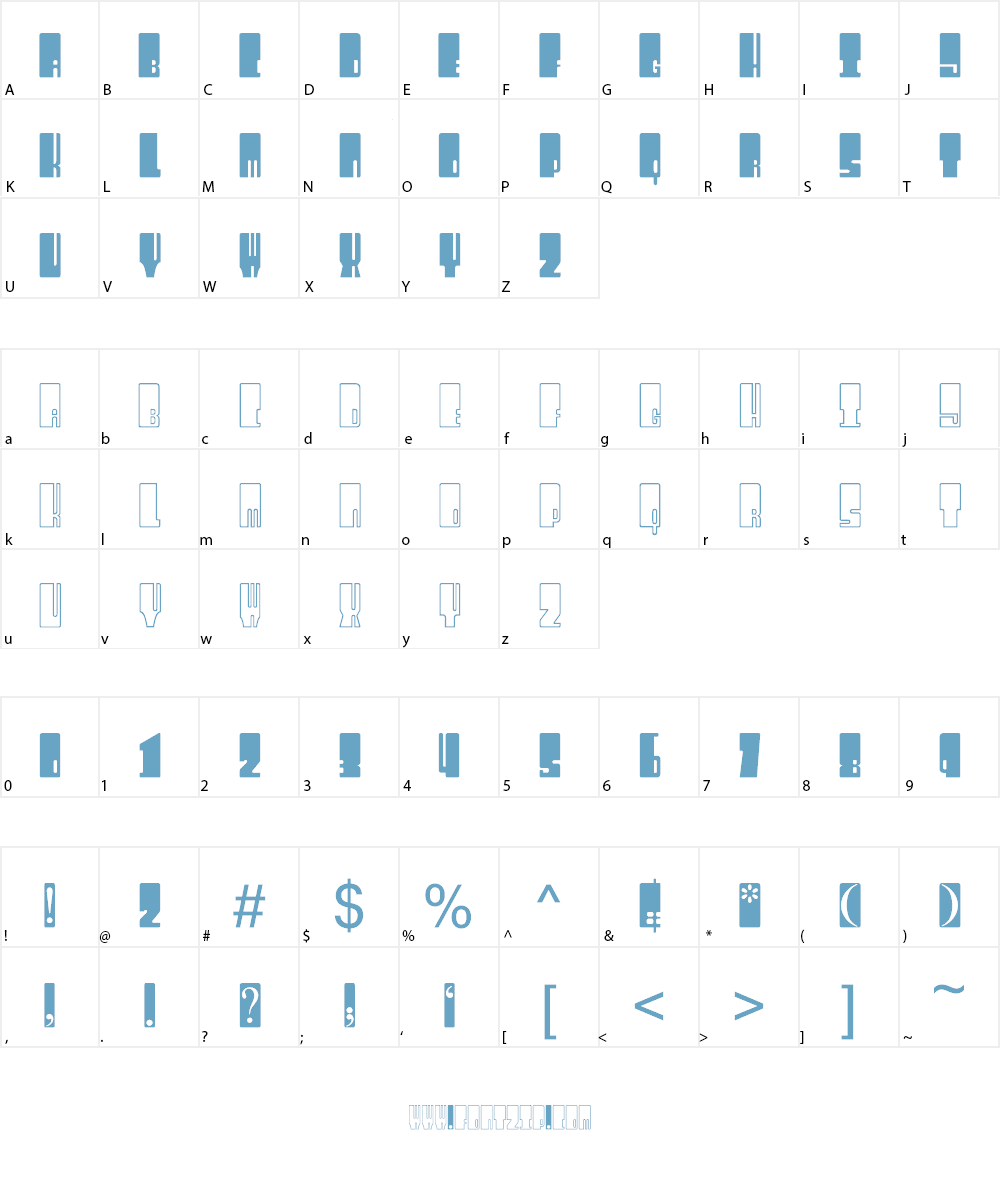
This font came at me out of nowhere - Sorry it's so horrible but I was reading a book about Audio Technology in the 70's - they used something like this for the headings...